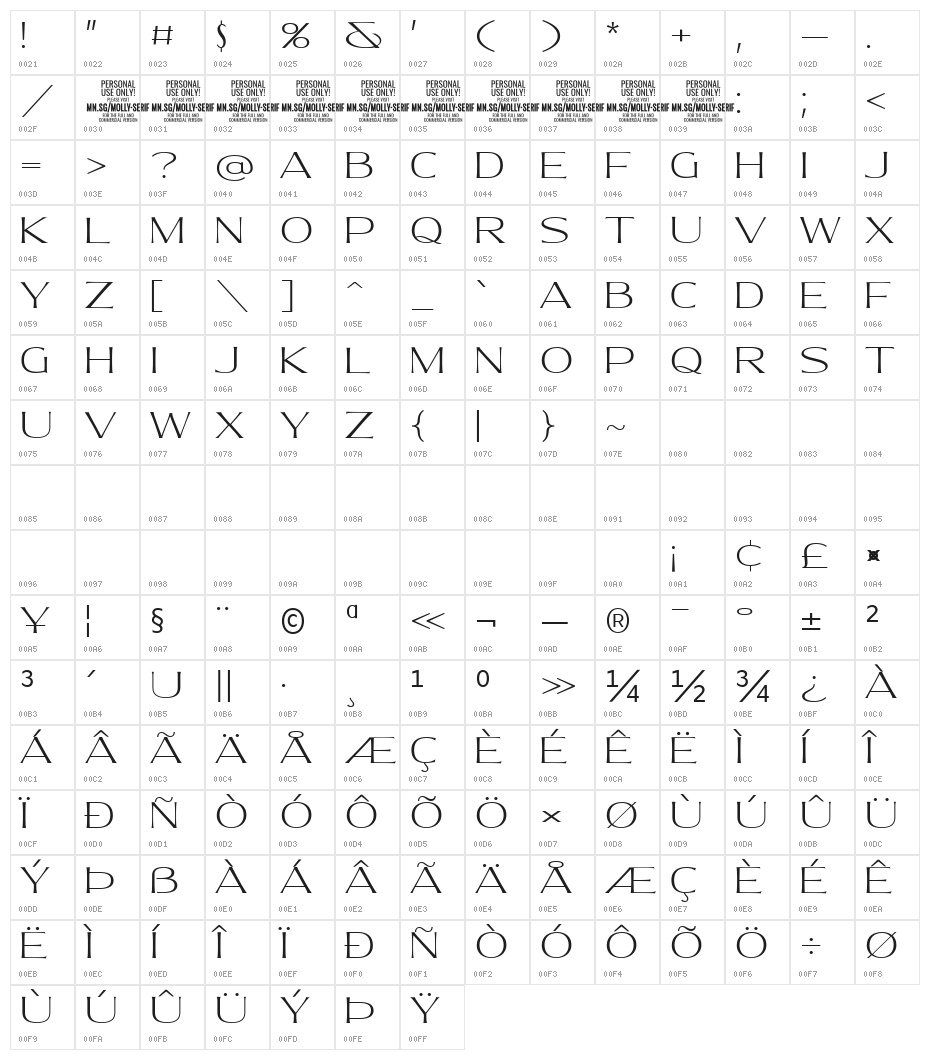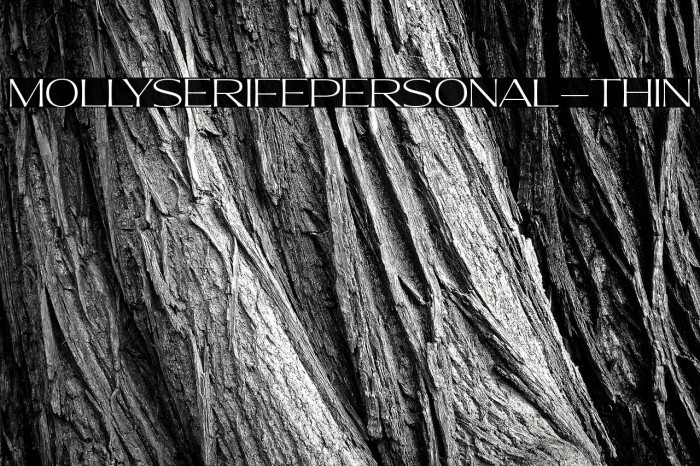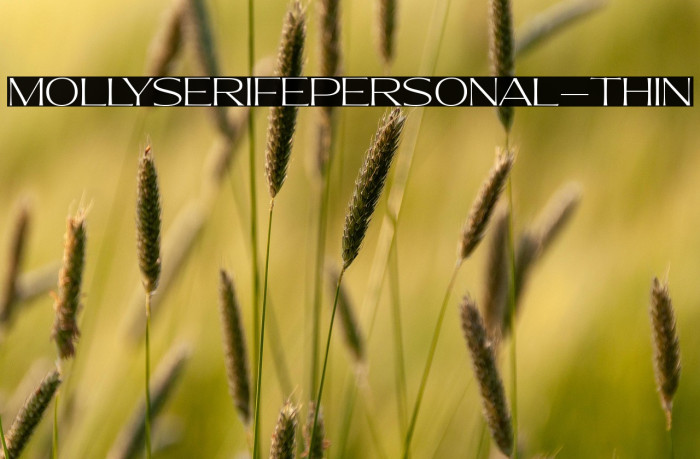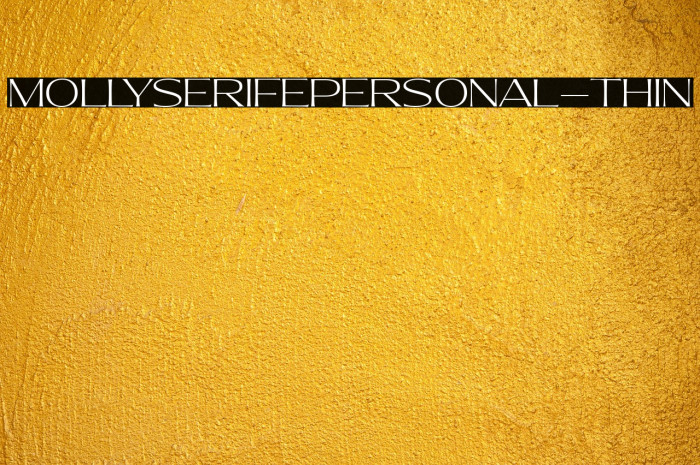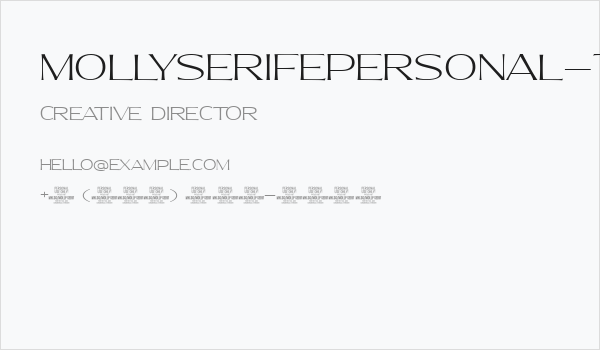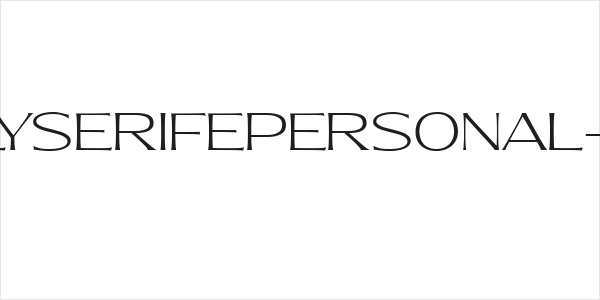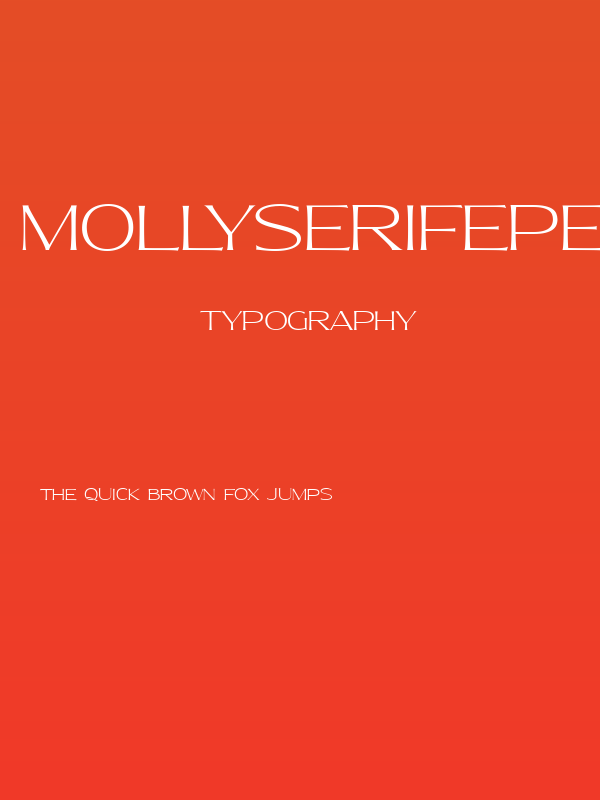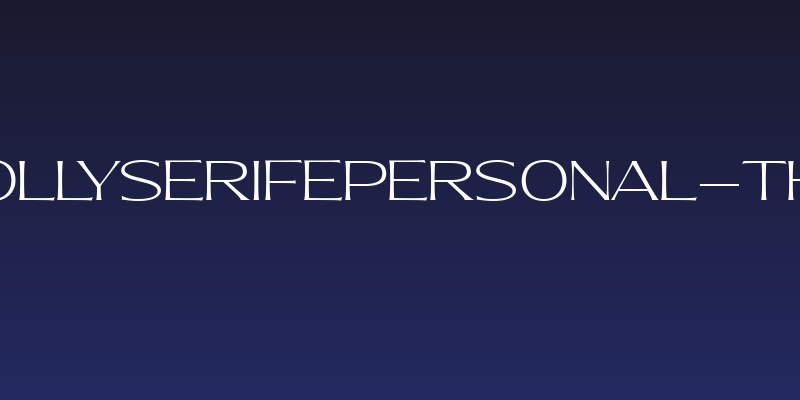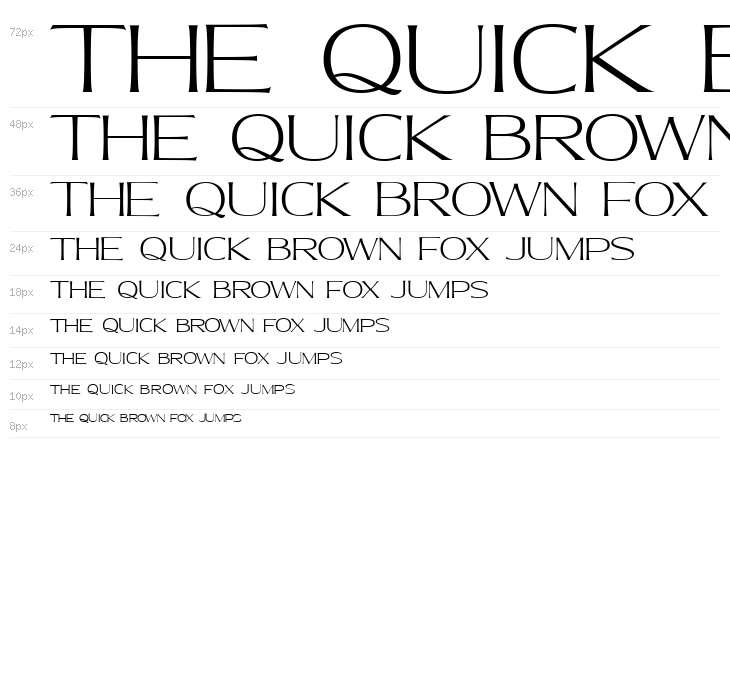
MollySerifEPERSONAL-Thin Font
MollySerifEPERSONAL-Thin Description
This font features a distinctive serif style with thin, elegant strokes that convey a sense of sophistication and modernity. The uppercase letters are characterized by sharp, angular serifs and a consistent stroke width, giving the typeface a refined and polished appearance. The lowercase letters maintain the same thinness, offering a harmonious balance between the uppercase and lowercase forms. The numerals and special characters are designed with the same attention to detail, ensuring a cohesive look across all glyphs. The overall design is sleek and contemporary, making it suitable for a variety of design applications.
| Proposed Projects | Ideal for luxury branding, editorial design, wedding invitations, and high-end product packaging. |